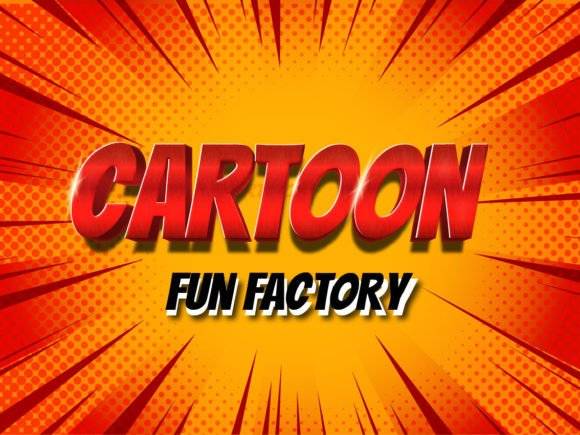
Alpacico Font
Introducing Alpacico, a sleek and contemporary display font that embodies a playful cartoon aesthetic. With its uncluttered, reader-friendly design, alpacico promises to elevate your creative projects effortlessly. Tailored to support multiple languages, Alpacico offers a myriad of applications across a broad spectrum of design works. Whether it’s adorning the pages of a novel, making a statement on a t-shirt, catching the eye on banners or enriching the layout of brochures, Alpacico is the perfect accompaniment to your endeavors in the realm of design. Possessing a unique blend of modernity and whimsy, alpacico is set to transform your projects from ordinary to extraordinary.